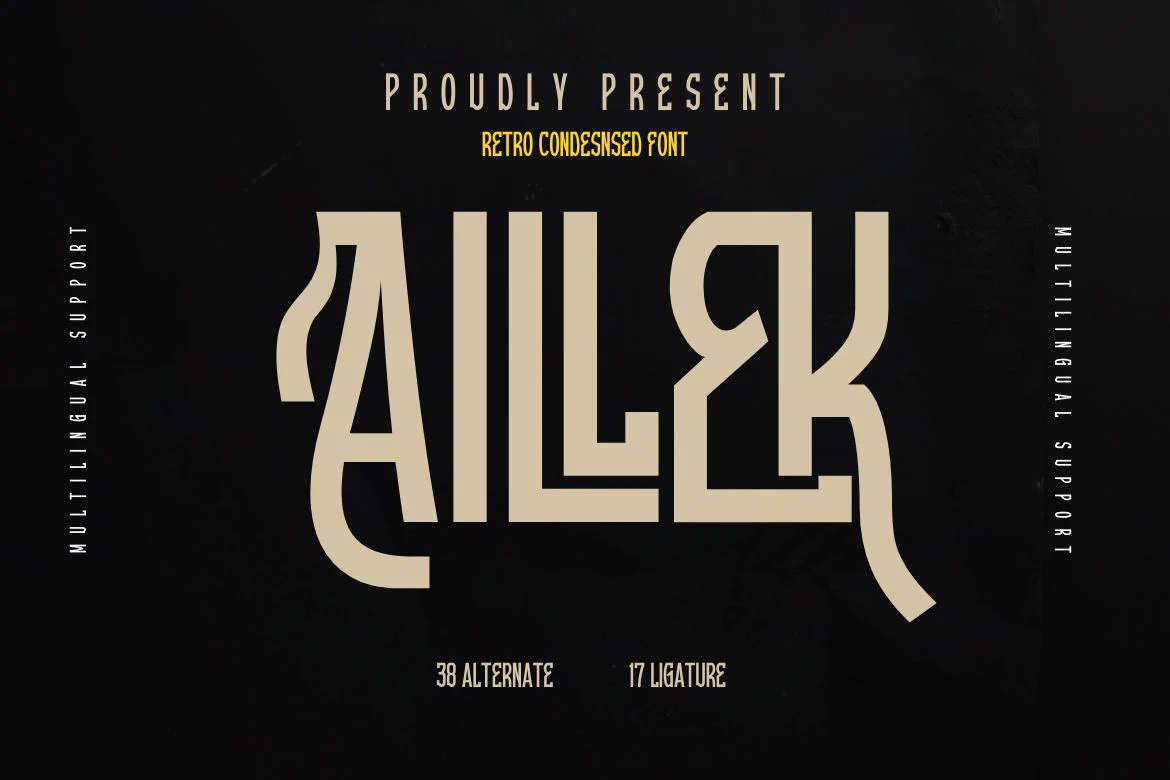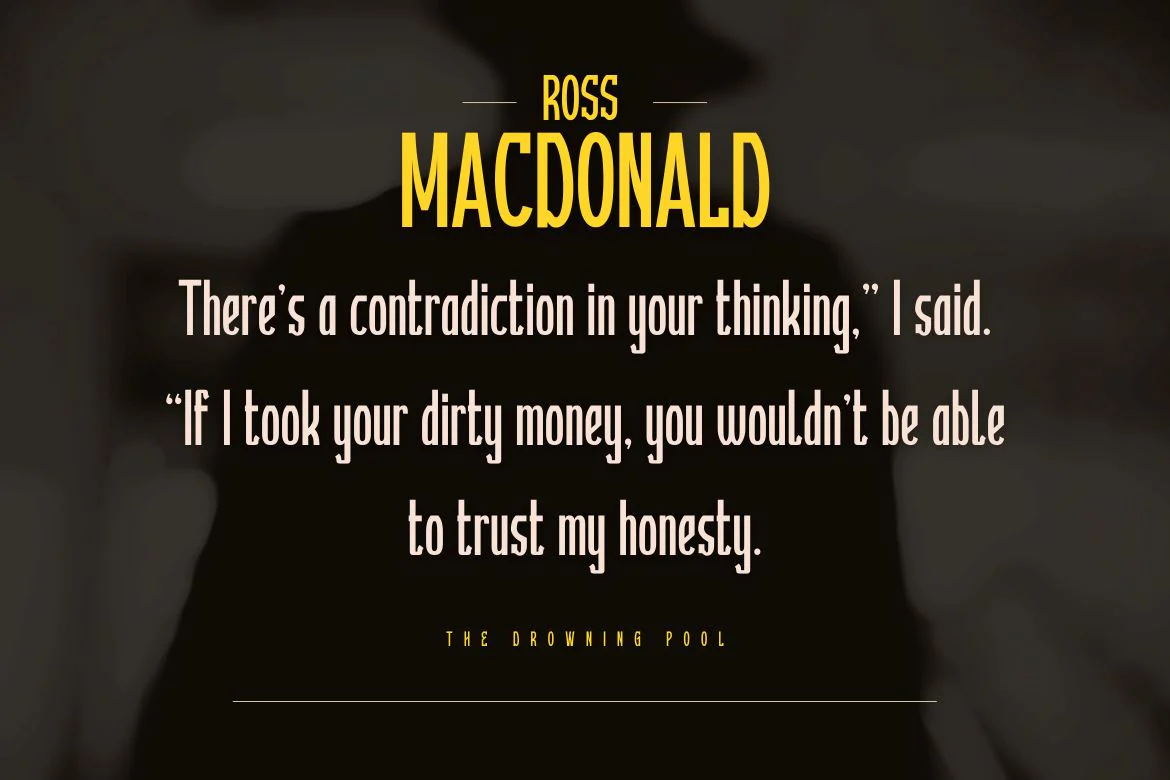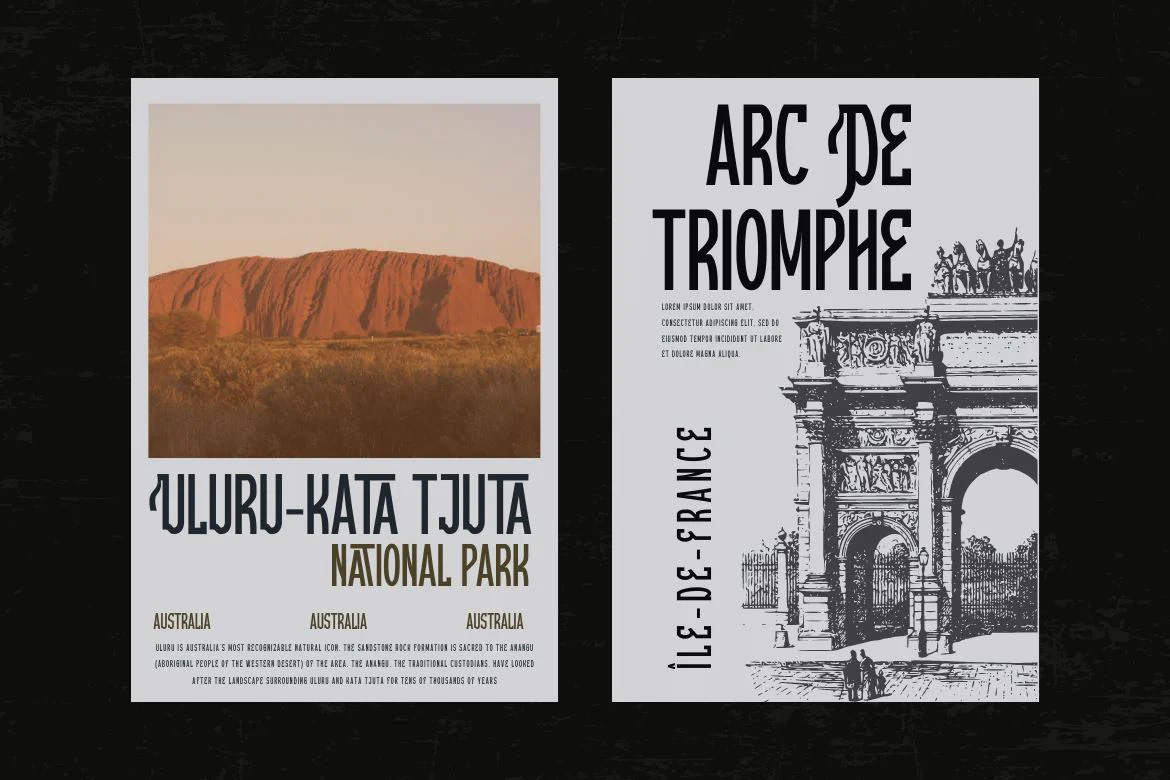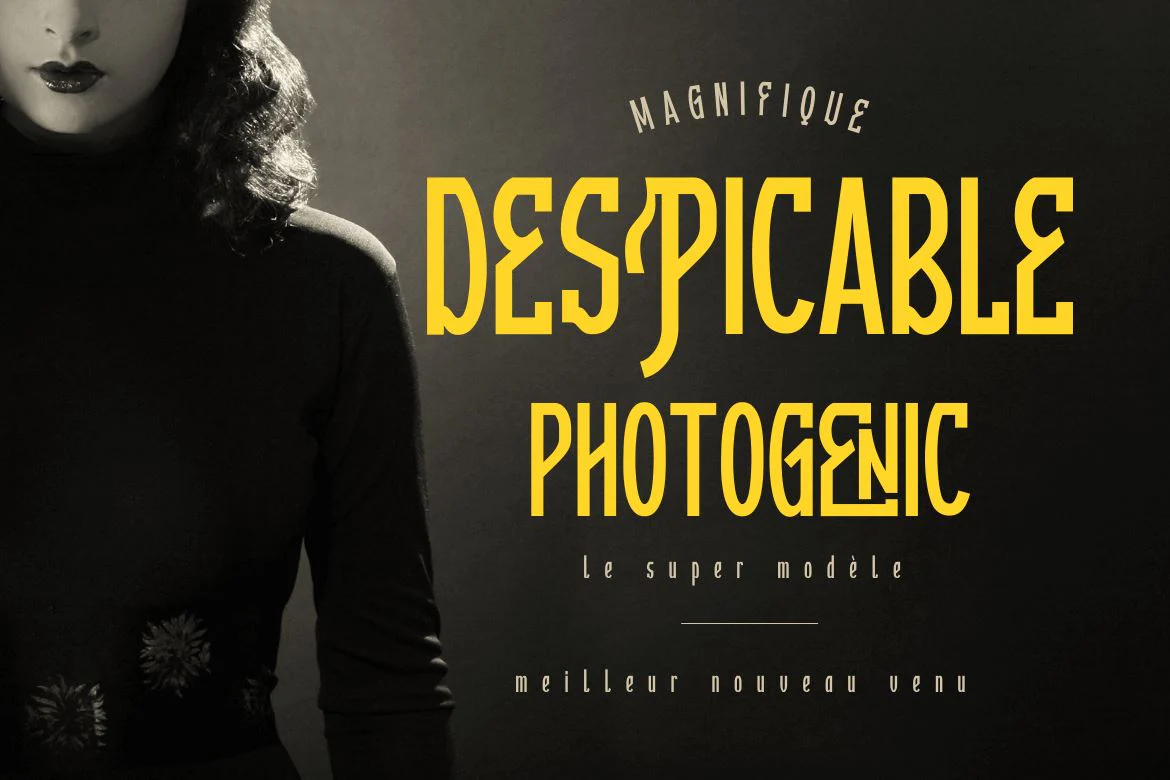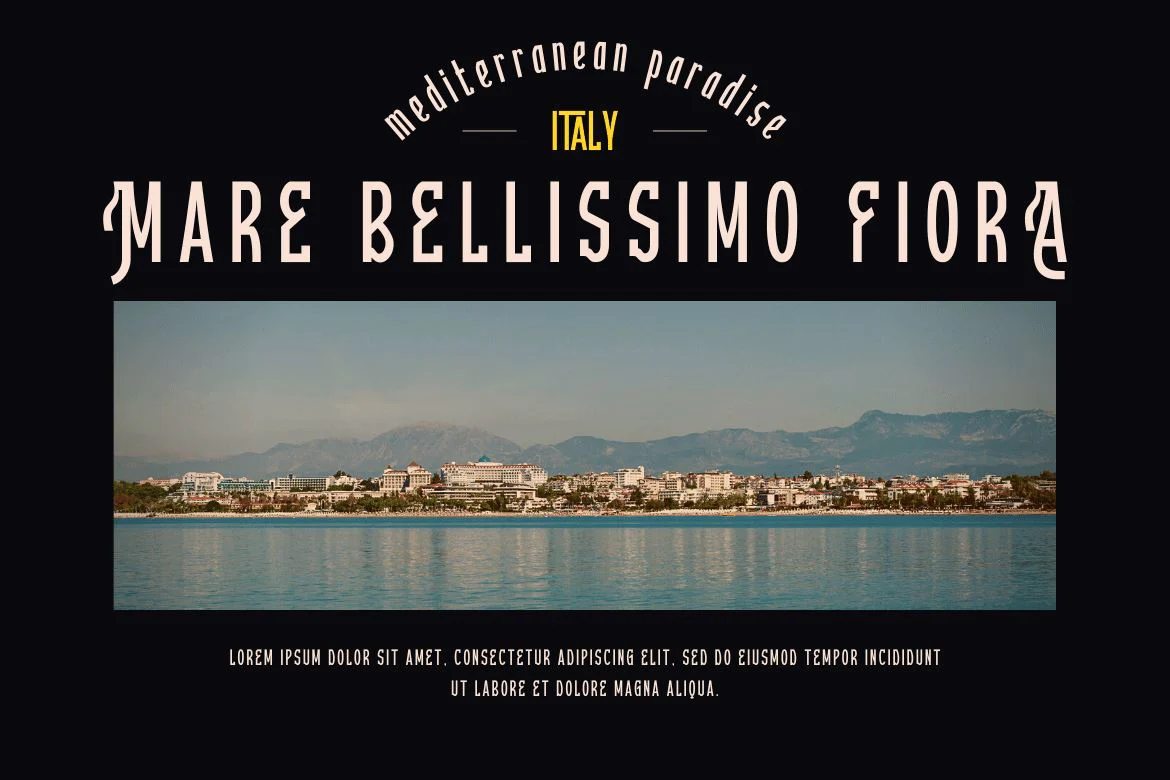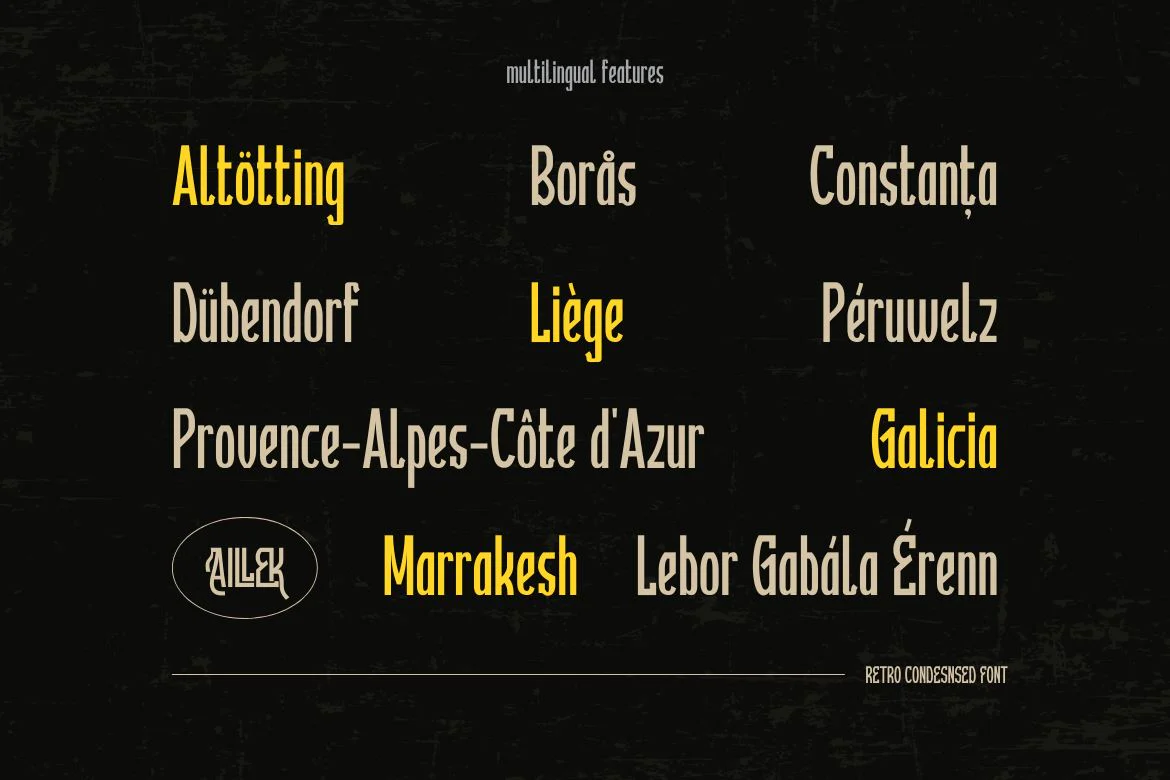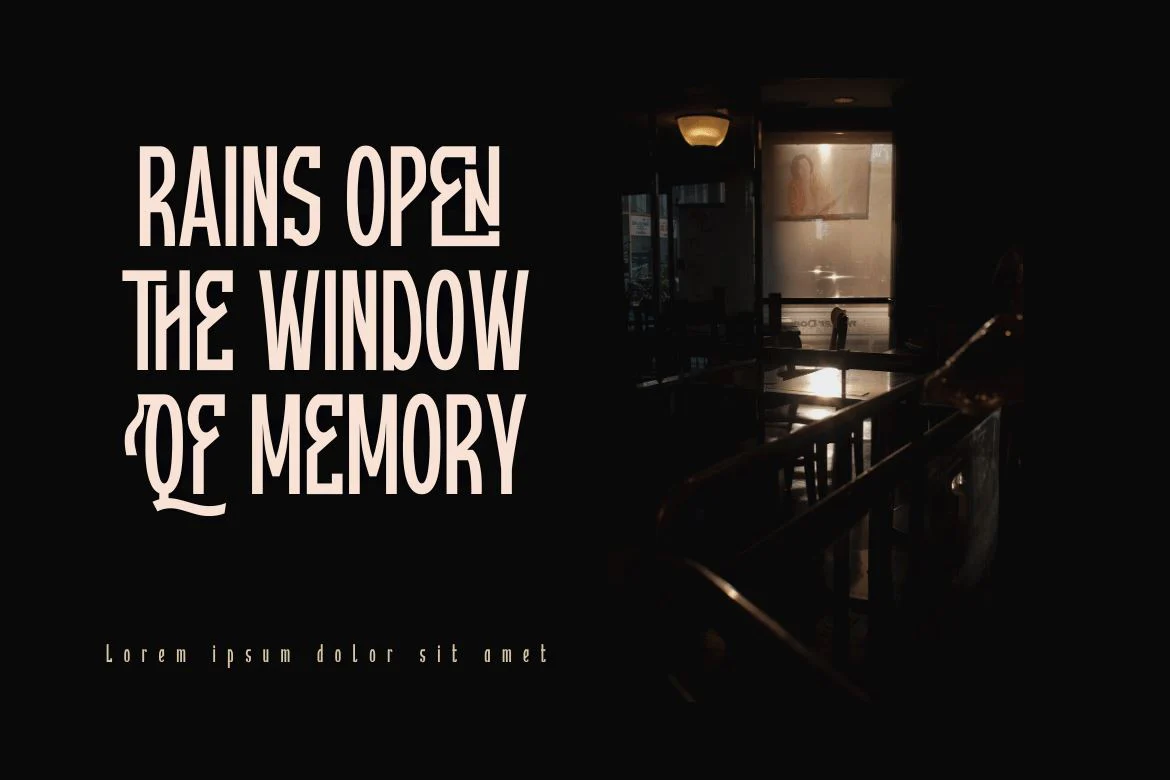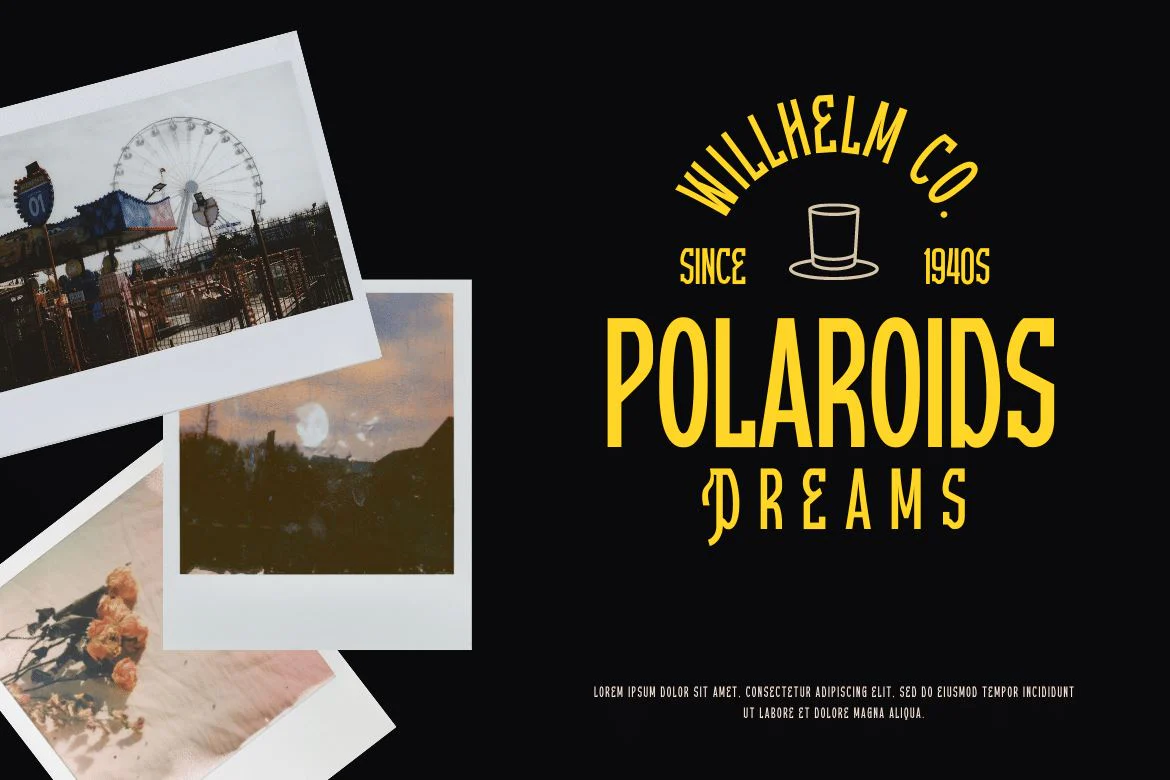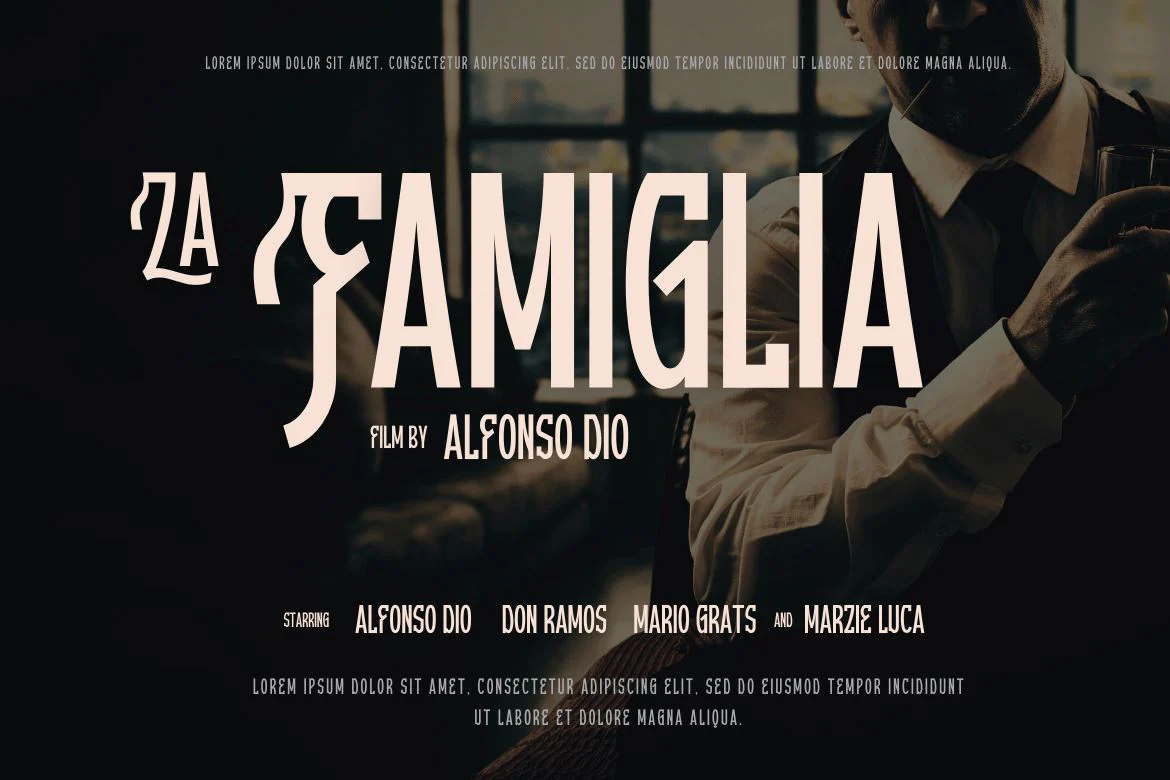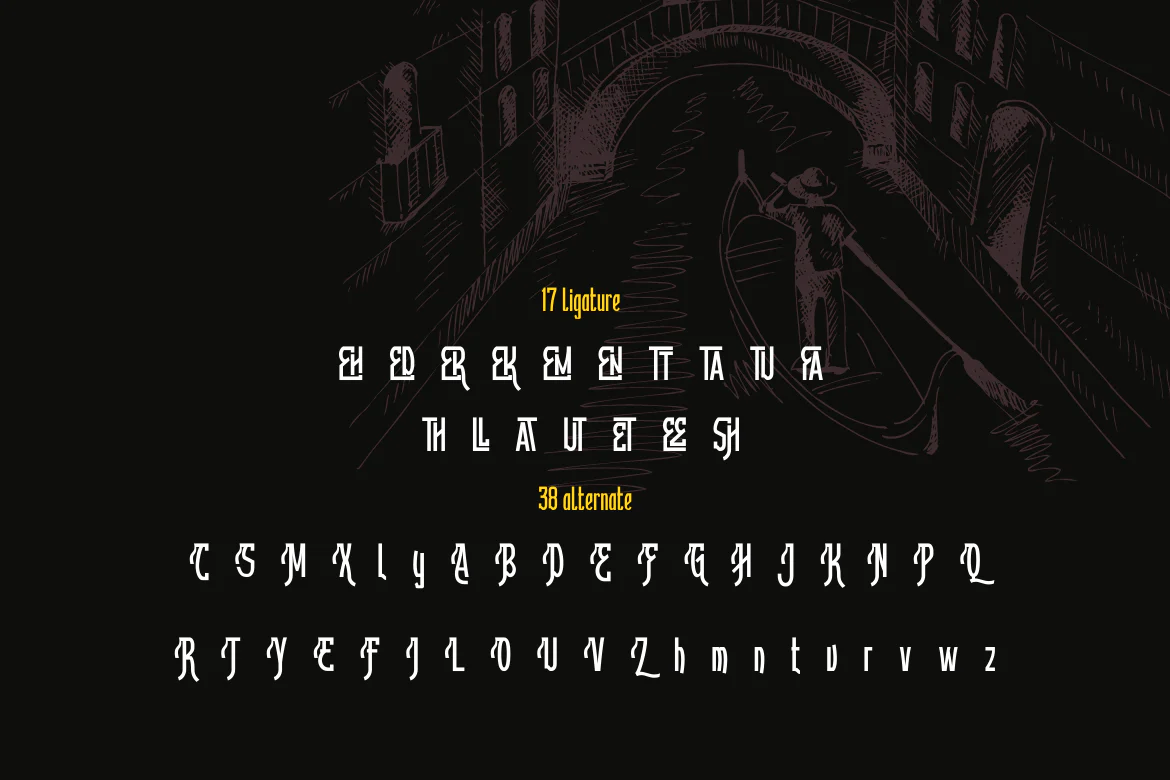
Aillek | Retro Condensed Font
Introducing Aillek, a retro-condensed font with multilingual support and a distinctive look that will enhance any project. Aillek lends a touch of retro charm to any design with its lofty letterforms and alternate characters. Your design becomes more dynamic and interesting thanks to its ligatures options.
Aillek is ideal for producing vintage flyers, logos in retro style, nostalgic social media graphics, and more. It is perfect for branding initiatives, packaging design, book covers, and more due to its condensed letterforms. It is adaptable for any project that needs to reach a large audience thanks to its multilingual support.
Aillek is a must-have for any designer, marketer, or anyone looking to add a dash of nostalgia to their work because of its distinctive design and features. It’s ideal for those who want to add a touch of nostalgia to their designs as well as for those who want to create designs that evoke nostalgia and vintage aesthetics.
Introducing Aillek, a retro-condensed font with multilingual support and a distinctive look that will enhance any project. Aillek lends a touch of retro charm to any design with its lofty letterforms and alternate characters. Your design becomes more dynamic and interesting thanks to its ligatures options.
Aillek is ideal for producing vintage flyers, logos in retro style, nostalgic social media graphics, and more. It is perfect for branding initiatives, packaging design, book covers, and more due to its condensed letterforms. It is adaptable for any project that needs to reach a large audience thanks to its multilingual support.
Aillek is a must-have for any designer, marketer, or anyone looking to add a dash of nostalgia to their work because of its distinctive design and features. It’s ideal for those who want to add a touch of nostalgia to their designs as well as for those who want to create designs that evoke nostalgia and vintage aesthetics.